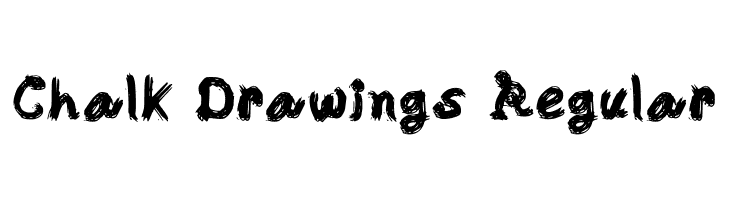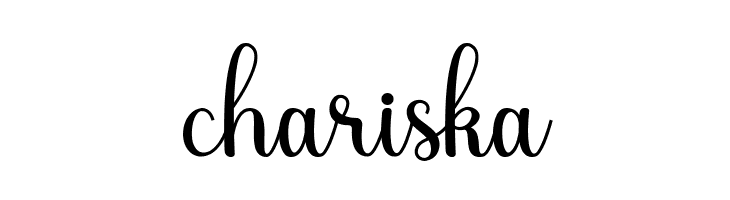
A bold, textured font with a hand-drawn, chalk-like appearance.
A textured, hand-drawn font with a chalk-like appearance.
A playful, chalk-inspired font with a textured, hand-drawn look.
A lively, handwritten font with fluid strokes and a playful elegance.
A graceful script font with flowing, cursive letters and a natural handwritten style.
A dynamic and elegant script font with bold, flowing characters.
A lively, brush-style font with dynamic, handcrafted strokes.
A playful, bold font with rounded, smooth curves and a friendly appearance.
A modern sans-serif font with a clean, uniform appearance and a playful touch.
A bold, hand-drawn font with a playful and energetic style.